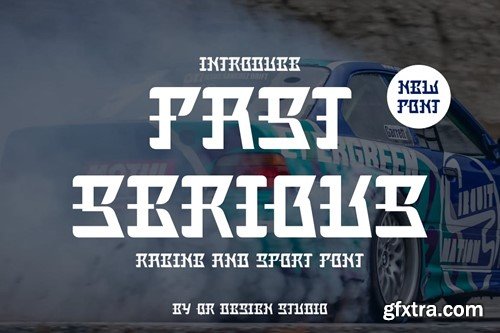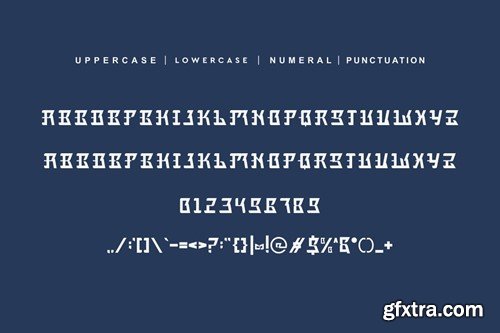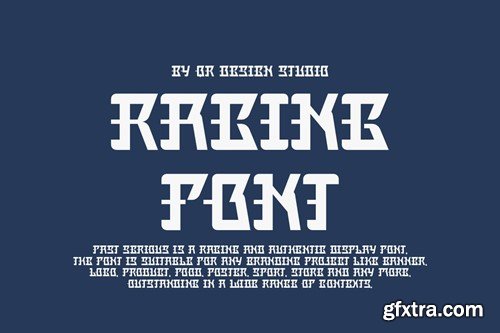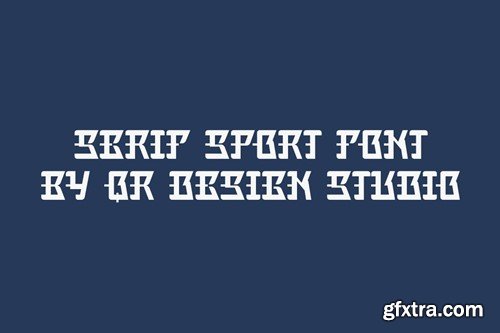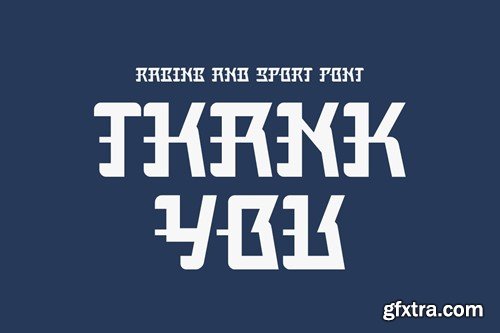
Fast Serious - Racing & Speed JLQ699U
Fast Serious - Racing & Speed Font JLQ699U
Fast Serious - Racing & Speed Font
Fast Serious - Racing & Speed Font is a bold and authentic display font. The font is suitable for any branding project like poster, logo, sport, and many more. Outstanding in a wide range of contexts.